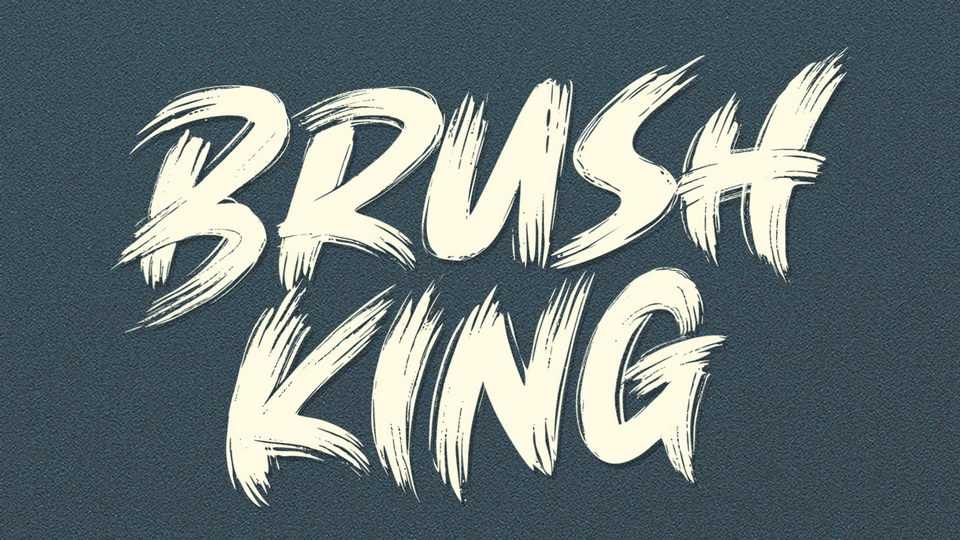
Download Brush King font, a supercharged hand painted typeface, street-wise brush script bursting with energy with extra attention to quick strokes and sharp details.